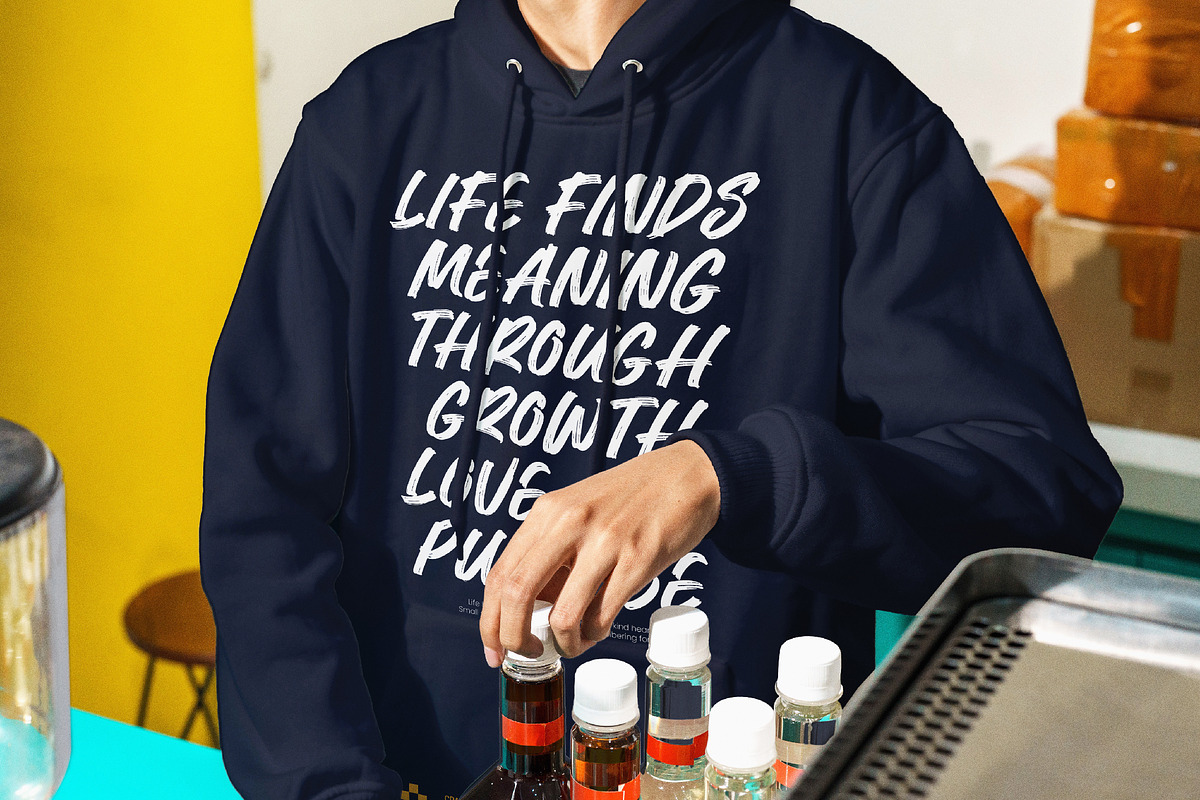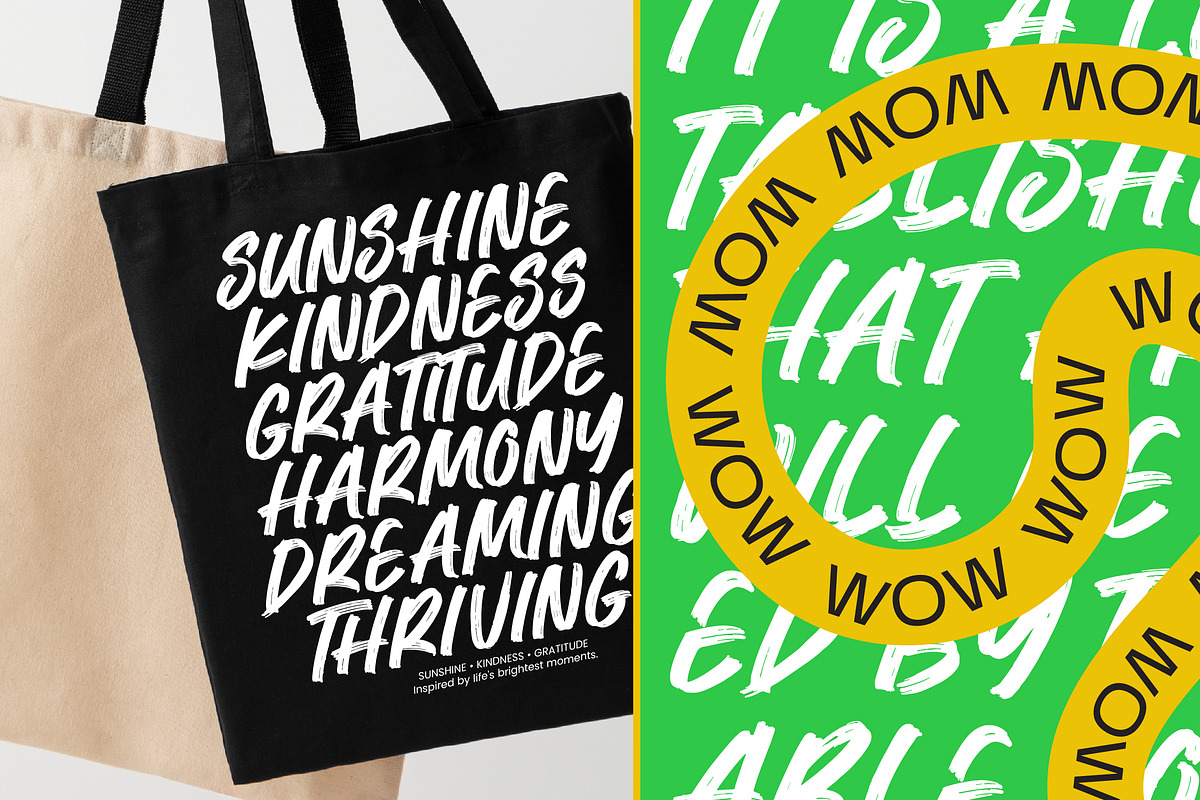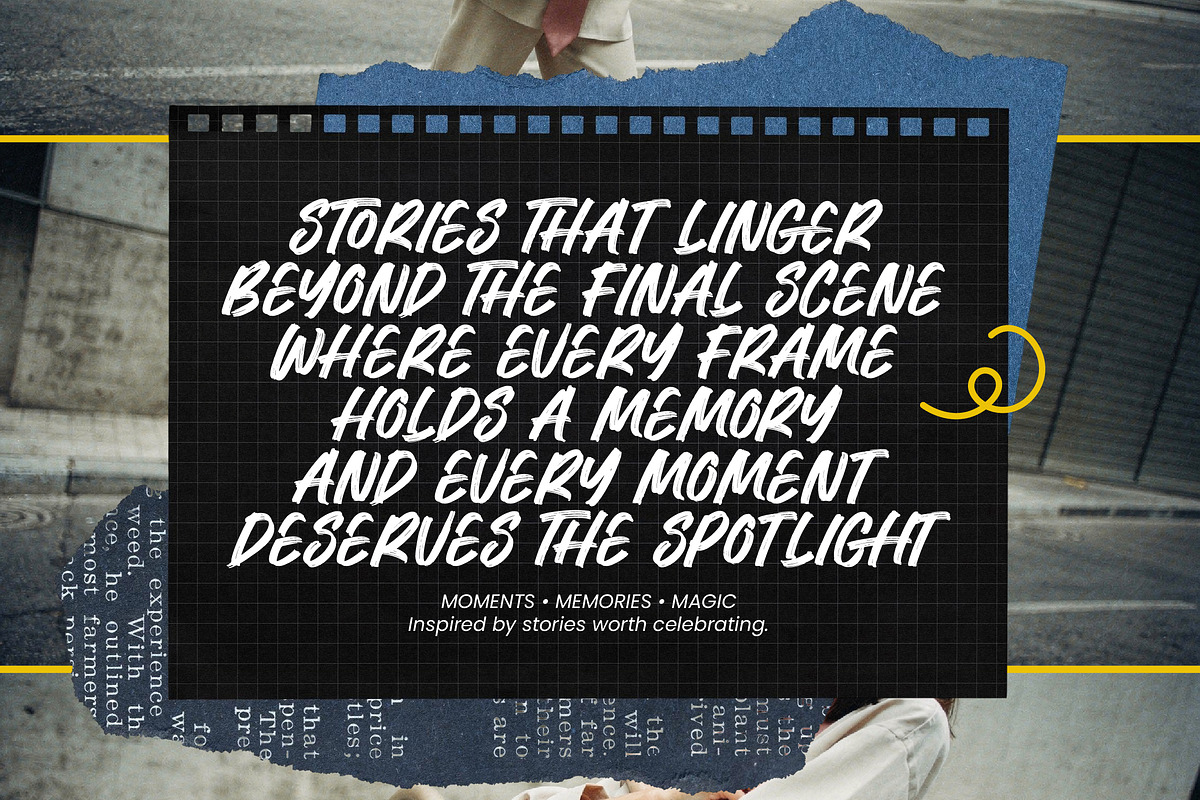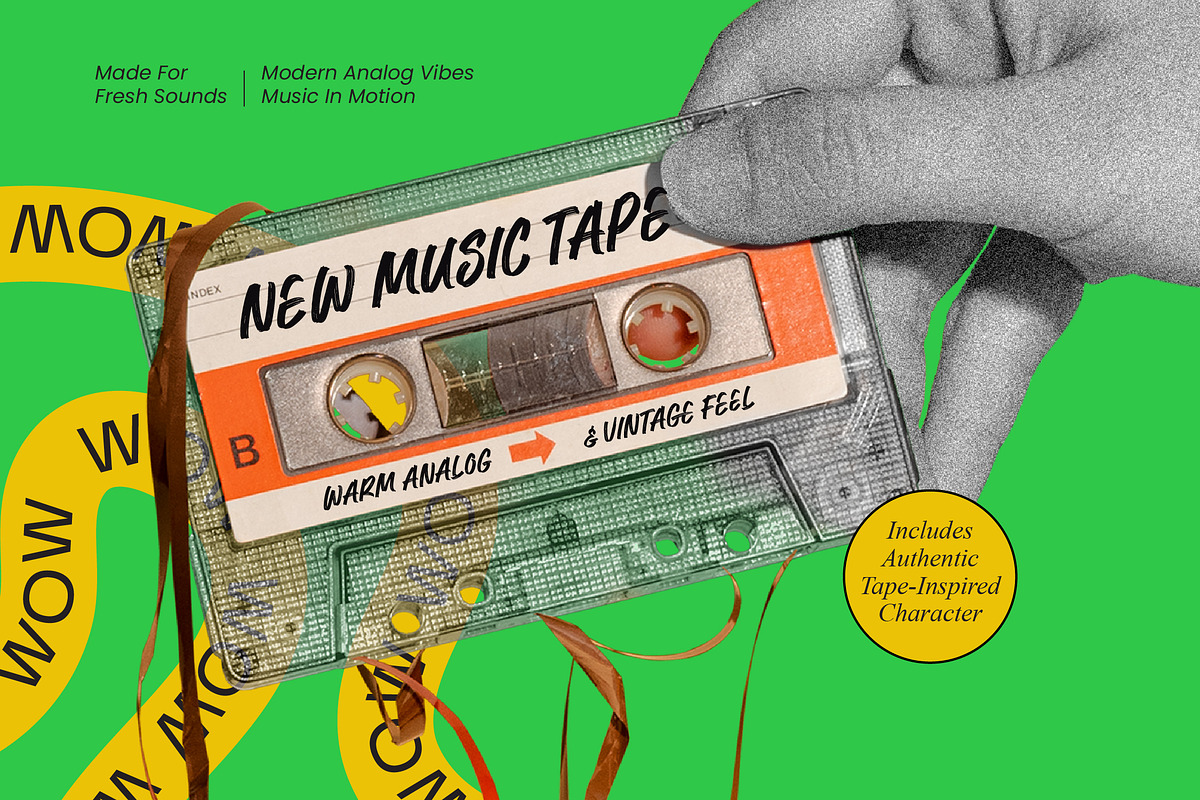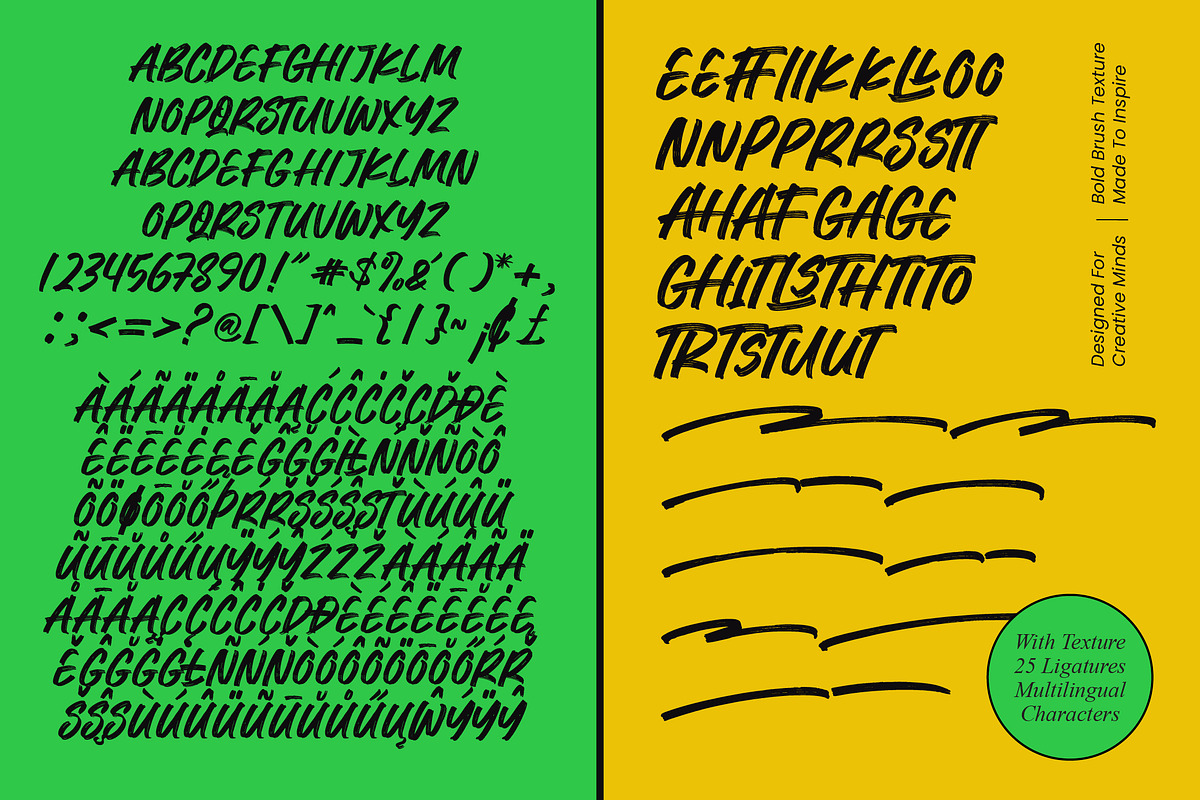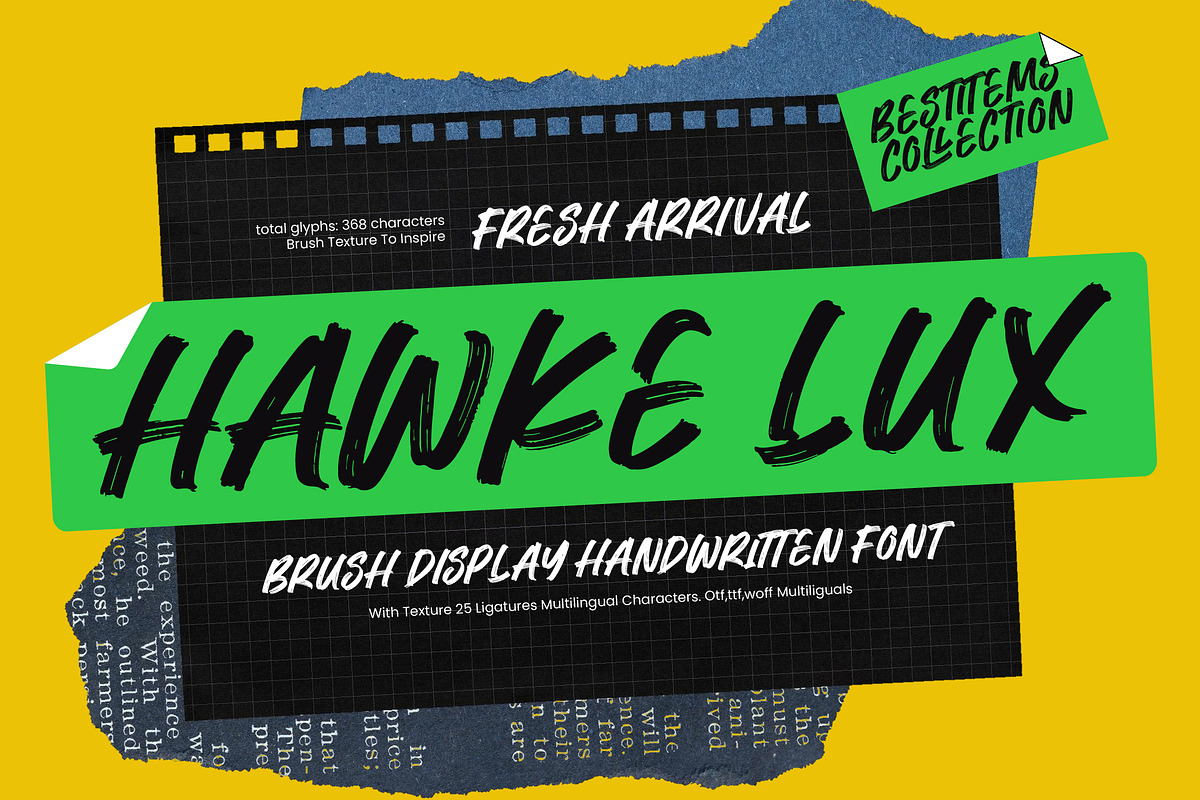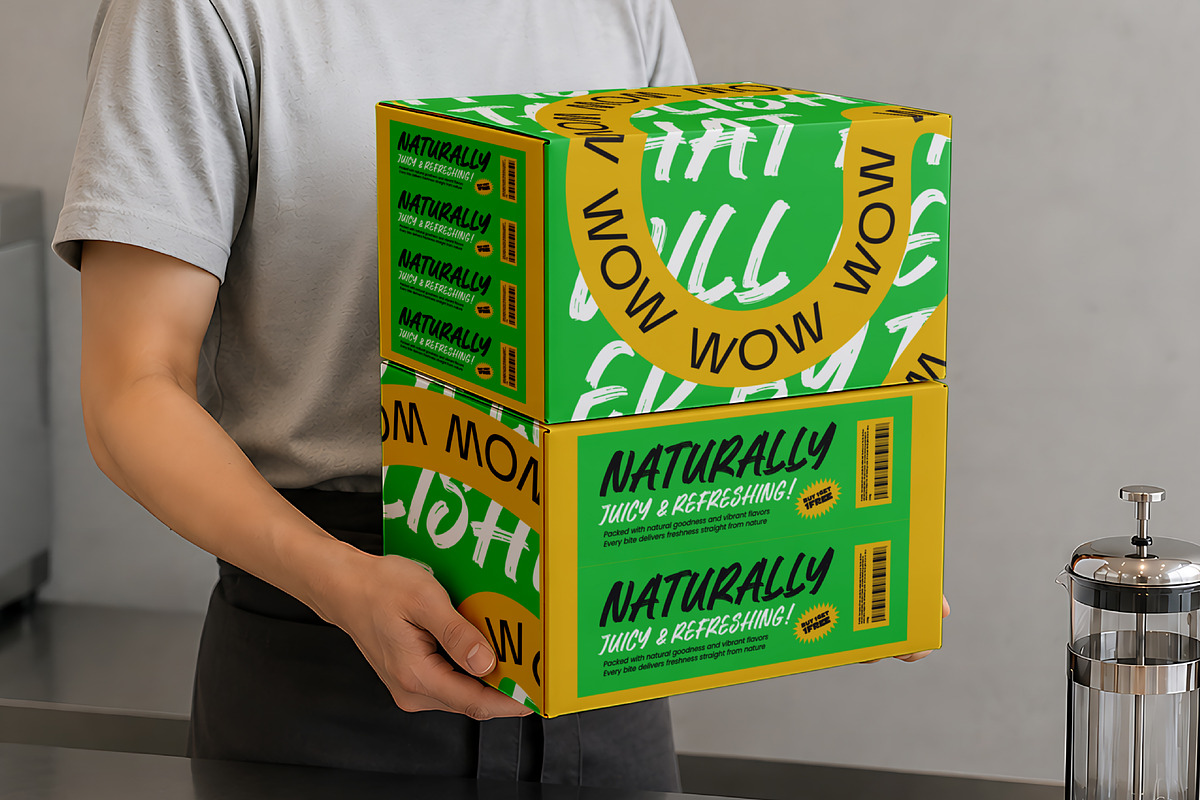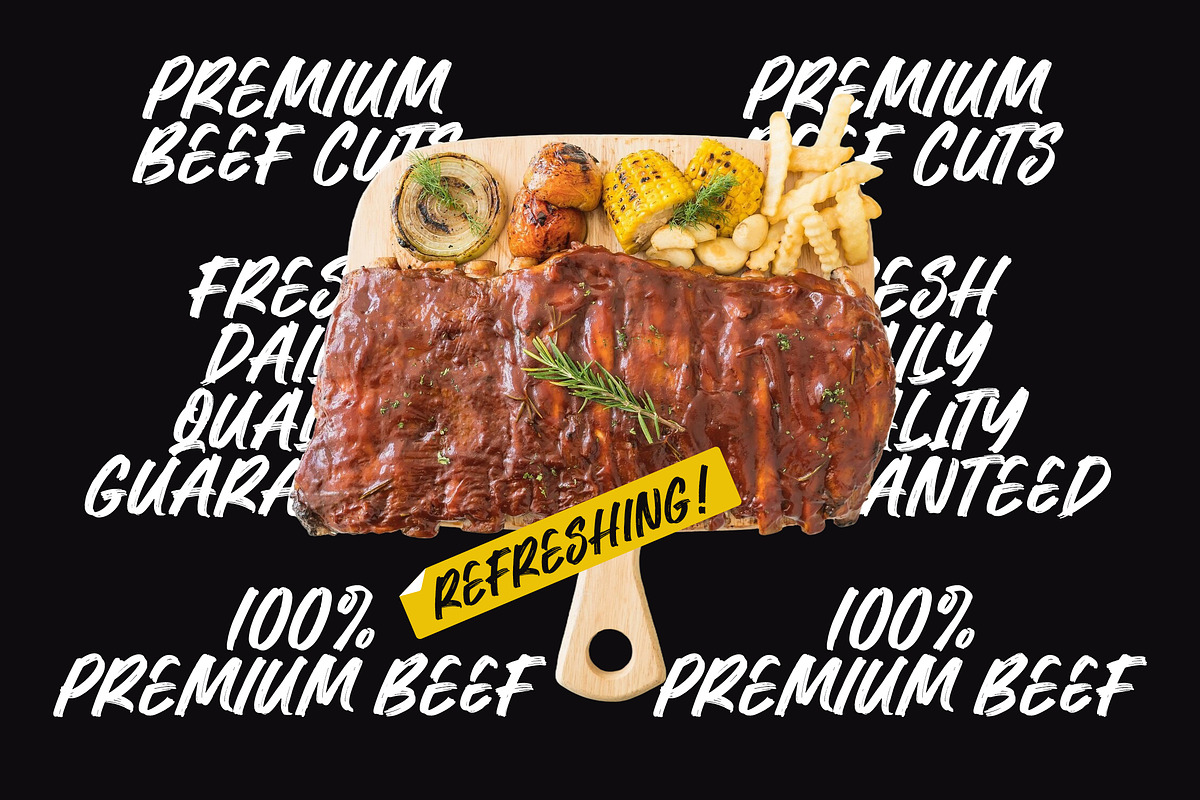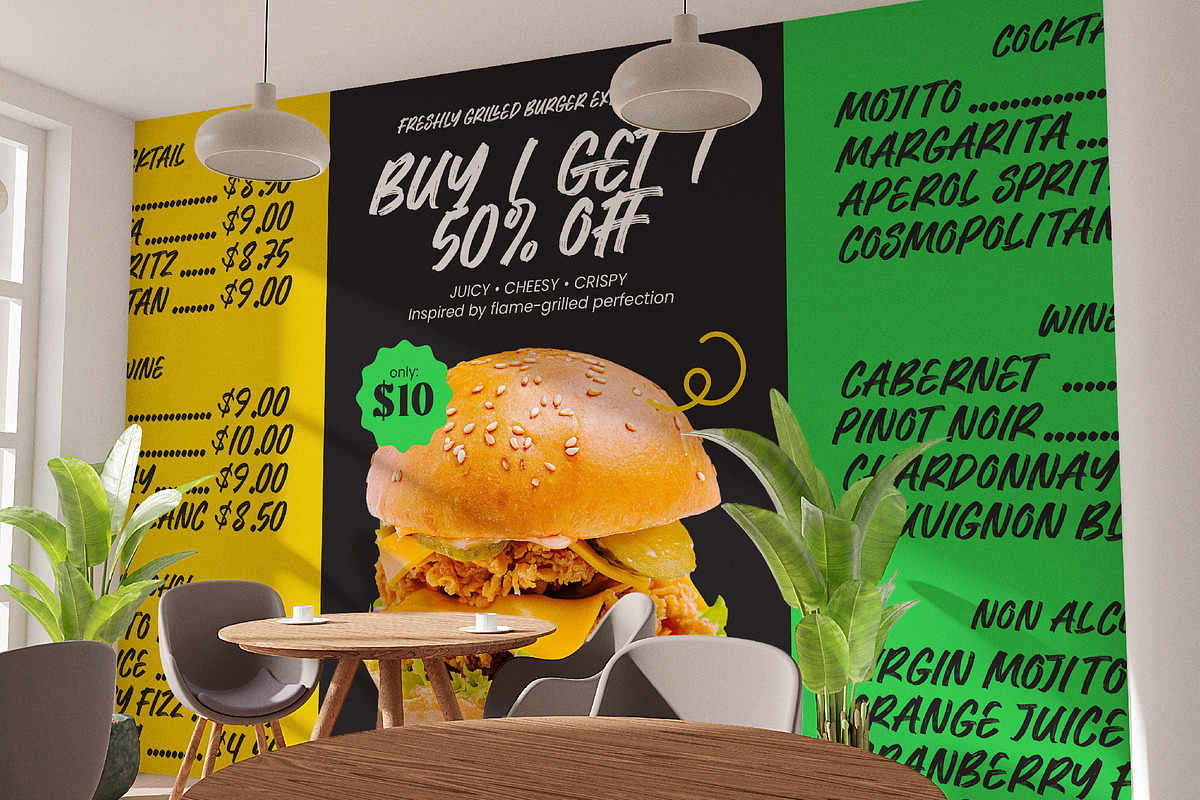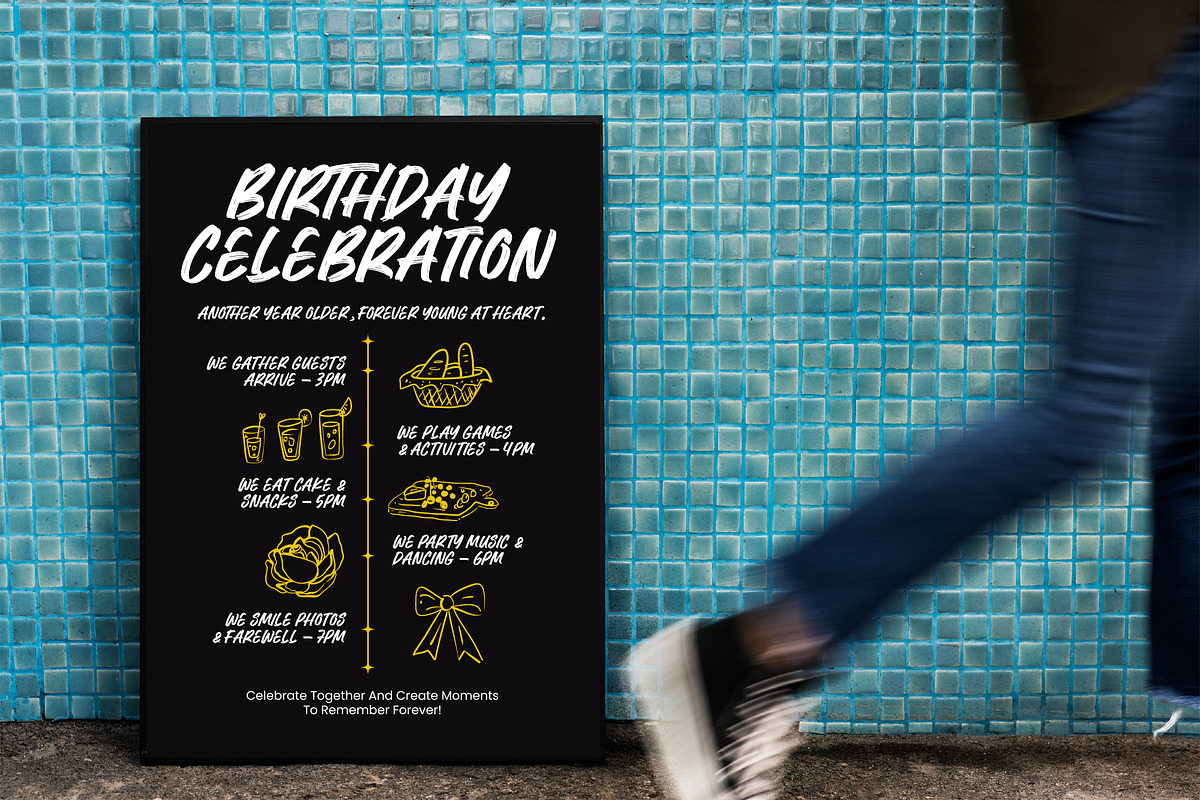
Hawke Lux Brush Display Handwritten
Hawke Lux - Brush Display Handwritten Font , Elevate your creative vision with a typeface that demands immediate attention through its raw energy and unapologetic boldness. Hawke Lux - Brush Display Handwritten Font is meticulously crafted to provide an authentic brush texture that breathes life into digital and print media alike. By combining hand-drawn spontaneity with professional precision, this font ensures that your headlines carry a sense of urgency and personality that standard typefaces simply cannot replicate.
Experience unmatched flexibility with a tool designed to excel in the competitive global design landscape. With its extensive multilingual support, Hawke Lux - Brush Display Handwritten Font adapts seamlessly across global markets, making it incredibly versatile for international projects. Featuring 368 total glyphs and 25 custom ligatures, the font maintains its visual integrity and organic flow regardless of the language or the complexity of the typographic composition.
Transform your marketing collateral into high-impact visual statements that resonate with modern audiences. This font is perfectly suited for luxury branding, streetwear apparel, and dynamic sports graphics where a high-contrast aesthetic is required. Designers will find Hawke Lux - Brush Display Handwritten Font to be the ultimate solution for bold packaging, social media assets, and compelling editorial design that seeks a raw, edgy vibe.